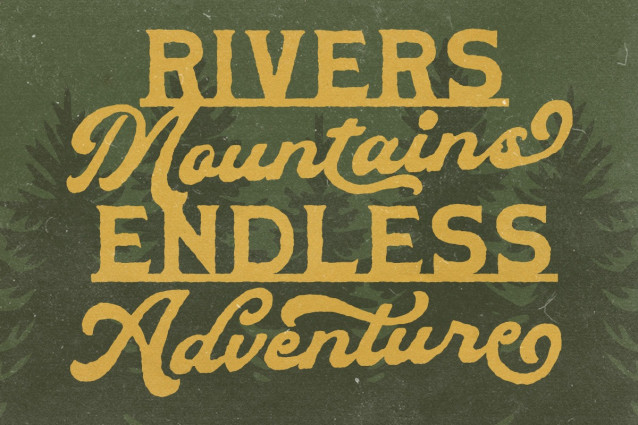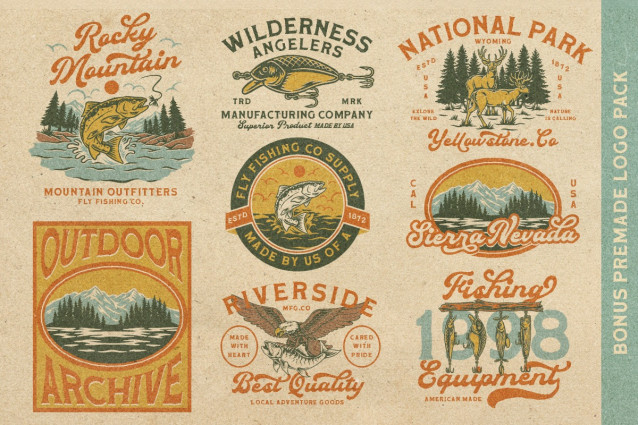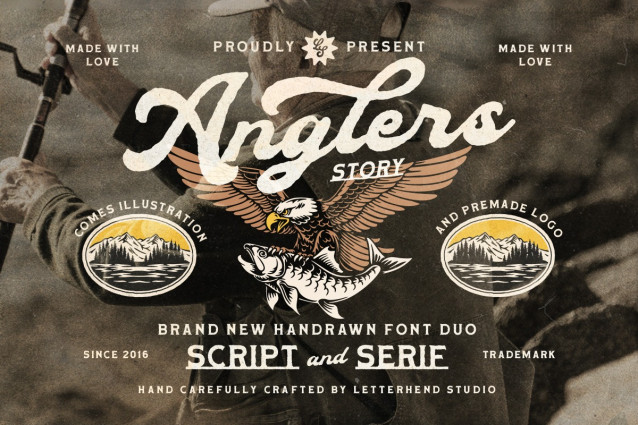
Anglers Story Outdoor Vintage Font
Rooted in the spirit of wilderness adventures and traditional sporting goods, Anglers Story combines a sturdy vintage serif with a lively handwritten script that naturally work together. The distressed handcrafted finish gives every word a weathered, authentic appearance, while the included outdoor illustrations and logo assets help you create complete visual identities with ease.